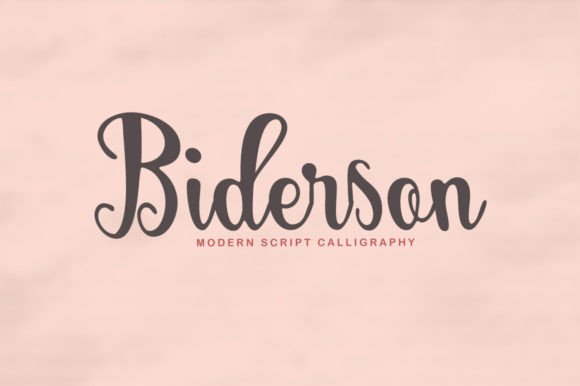
Unleash the Enchantment: Biderson Script, a Fusion of Classicism and Contemporary Flair
Adorn your designs with the grace and sophistication of Biderson Script, a remarkable font that masterfully blends the timeless charm of classic calligraphy with the vivacity of modern typography. This font is an artist's dream, effortlessly adding an aura of elegance to any project it graces.
From heartfelt wedding invitations to captivating posters, Biderson Script weaves its magic, leaving an indelible mark of beauty and finesse. Its meticulously crafted glyphs evoke an era of opulence, imbuing your words with a sense of weight and grandeur. Yet, amidst its classical allure, Biderson Script maintains a refreshing contemporary edge, ensuring it remains relevant and captivating in today's visual landscape.
Step into a World of Boundless Creativity
With Biderson Script as your creative companion, the possibilities are endless. Whether you're a seasoned designer or just starting your artistic journey, this font is your key to unlocking a treasure trove of captivating designs. Its versatility knows no bounds, seamlessly adapting to a multitude of creative endeavors.
Flourish your social media posts with eye-catching captions that demand attention. Craft logos that exude a timeless appeal, resonating with your audience on a deeper level. Create stunning marketing materials that leave a lasting impression, propelling your brand to new heights of success.
Biderson Script: An Ode to Elegance and Innovation
Biderson Script is more than just a font; it's an embodiment of artistic excellence. Its flowing curves, intricate details, and expressive nature make it an ideal choice for projects that demand a touch of grace and sophistication. With this font, you have the power to transform ordinary words into captivating masterpieces.
Be it a vintage-inspired poster, a heartfelt wedding invitation, or a sleek business card, Biderson Script will elevate your designs beyond the ordinary. Its inherent charm will captivate your audience, leaving them spellbound by the sheer beauty of your creations.